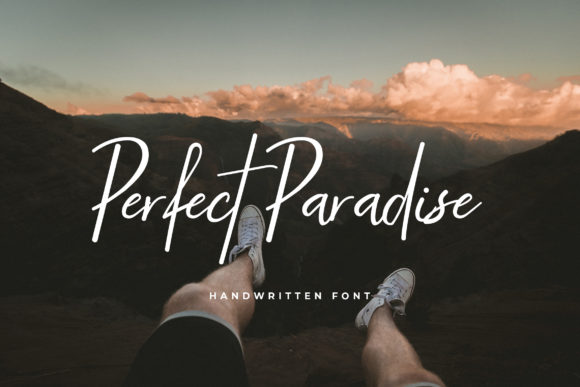
Ignite your designs with Perfect Paradise Font, a radiant script font poised to captivate and allure. Immerse yourself in its graceful curves, delicate flourishes, and captivating rhythm. This font is a visual symphony, striking the perfect balance between sophistication and playfulness.
With its clean, thin, and smooth lines, Perfect Paradise Font exudes an effortless elegance that will elevate your designs to new heights. Its versatility knows no bounds, making it the perfect choice for a wide array of projects, from elegant wedding invitations to captivating social media graphics.
Unlock the boundless possibilities of Perfect Paradise Font and let your creativity soar. Create eye-catching logos that demand attention, design stunning posters that leave a lasting impression, or craft enchanting branding materials that ooze personality and charm. The possibilities are endless, and the results are sure to be breathtaking.
Elevate your designs to the next level with Perfect Paradise Font. Immerse yourself in its beauty, let your imagination run wild, and experience the sheer joy of creating something truly extraordinary.